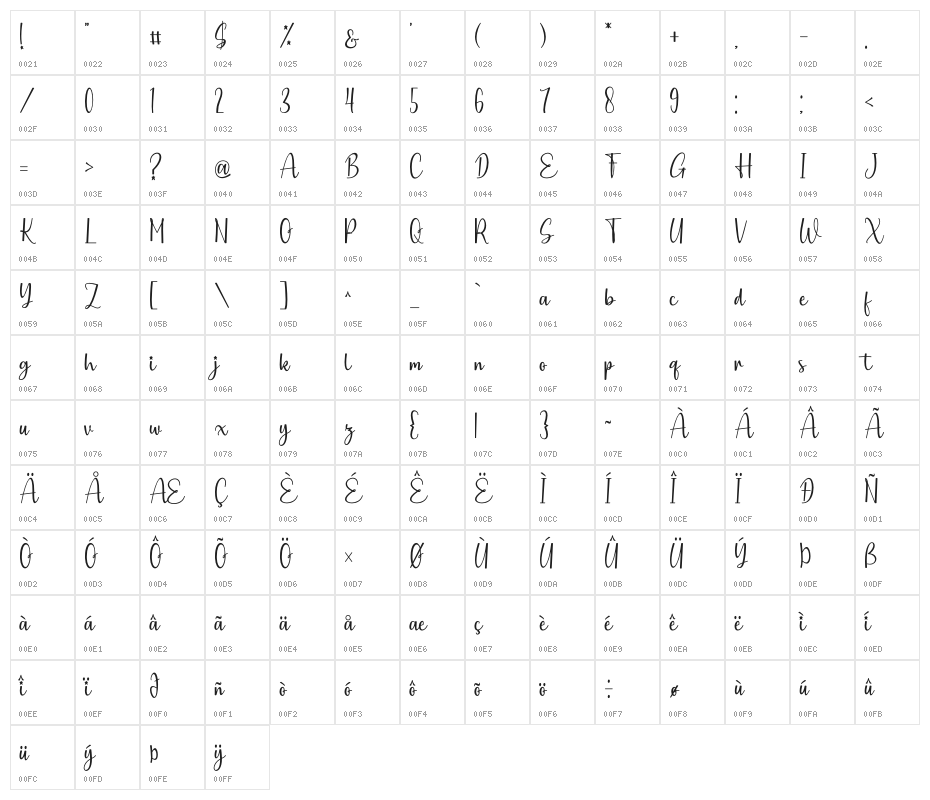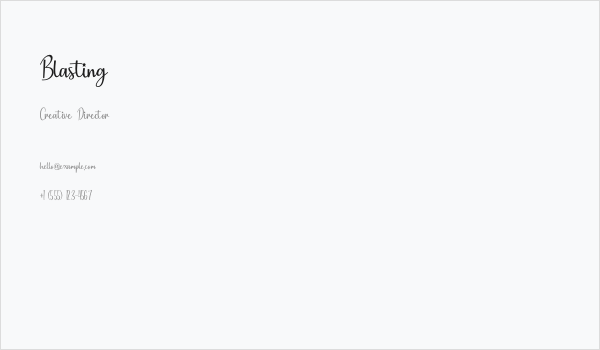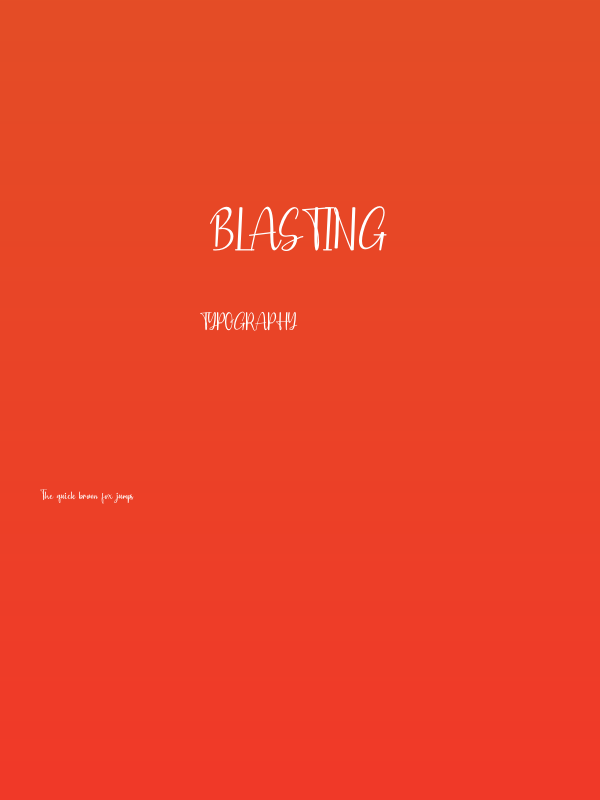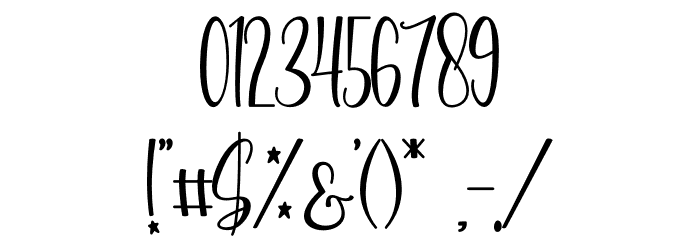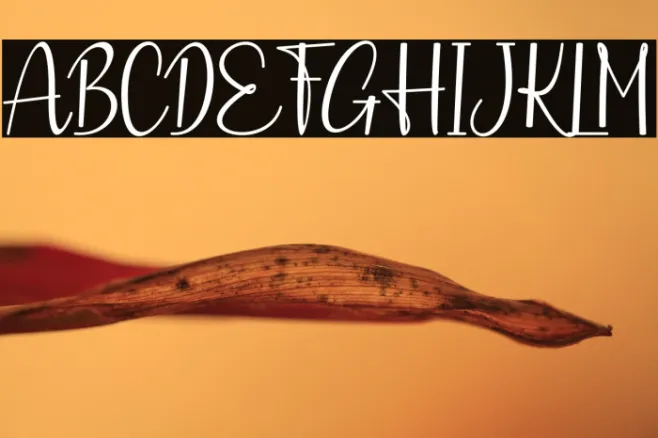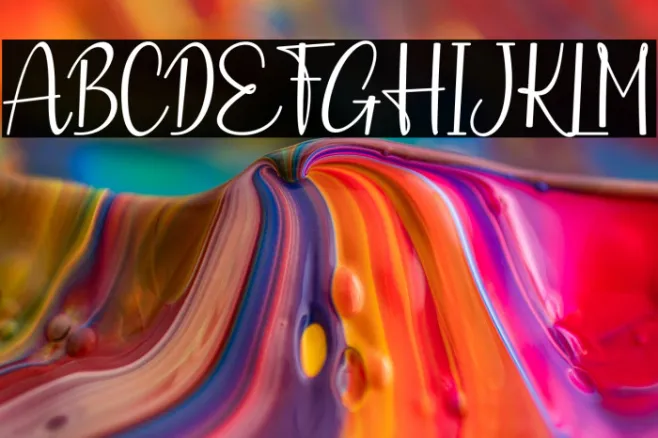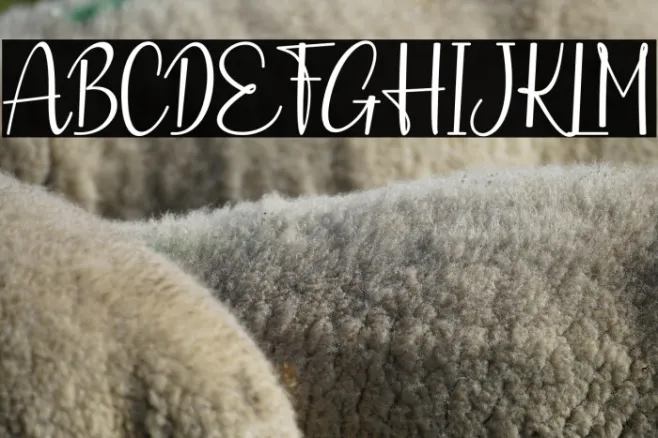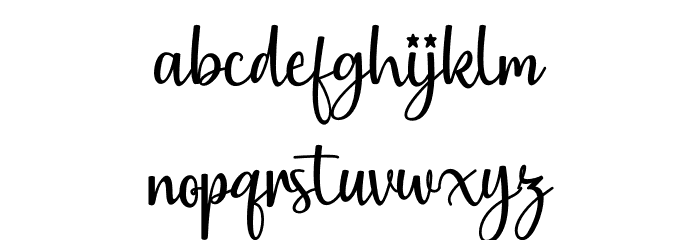
Blasting Font
Blasting Description
This font features a playful and whimsical script style with a handwritten appearance. The uppercase letters are tall and slightly narrow, with a mix of straight and curved lines that add a dynamic feel. The lowercase letters maintain a consistent flow, with some characters featuring unique embellishments, such as stars on the 'i' and 'j'. The numerals are bold and maintain the same playful style, ensuring readability while keeping the overall aesthetic. Special characters are creatively designed to match the font's lively and informal tone, making it suitable for projects that require a personal touch.
| Proposed Projects | Ideal for greeting cards, invitations, playful branding, and social media graphics. |